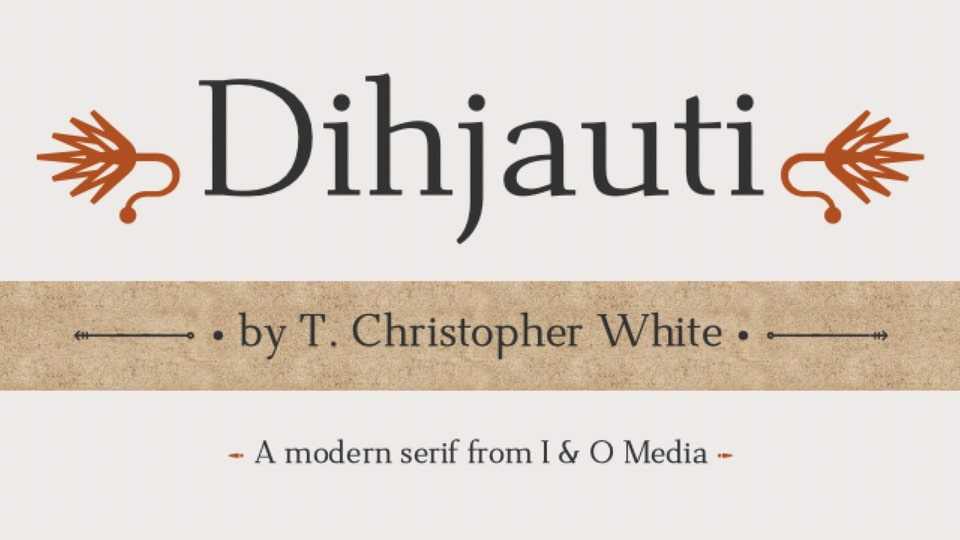
Download Dihjauti font, a text typeface inspired by Electra, Baskerville, Fairfield, and Perpetua. Dihjauti is modern and stately, and like its inspirers, it has broad counters and spacing, which temper it and give it warmth, making it comfortable and well-suited for longer texts.
Designer: T. Christopher White